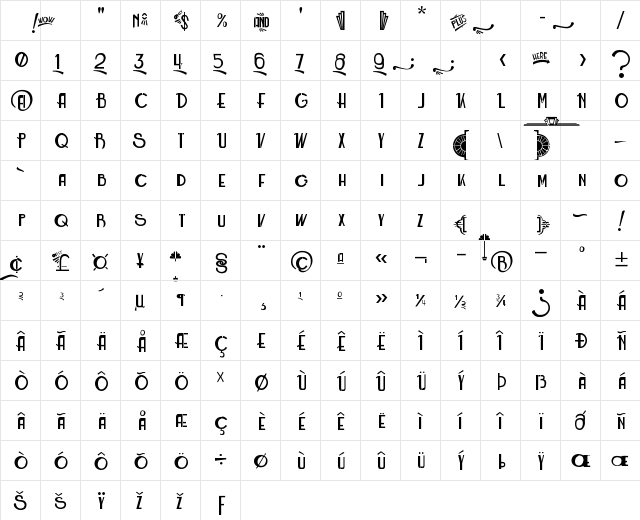
Complete Roarin' Twenties Counterfeit Regular glyph index. Displaying only characters natively supported by Roarin' Twenties Counterfeit Regular font.
Roarin' Twenties Counterfeit is a composed and adaptable typeface that performs quietly and consistently across a wide range of design contexts.